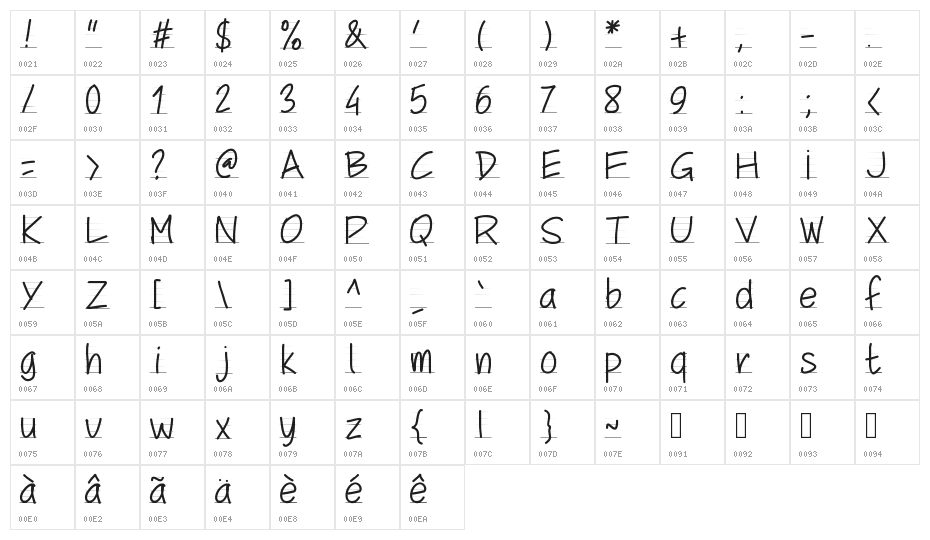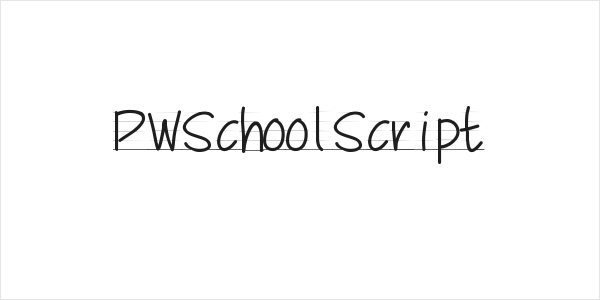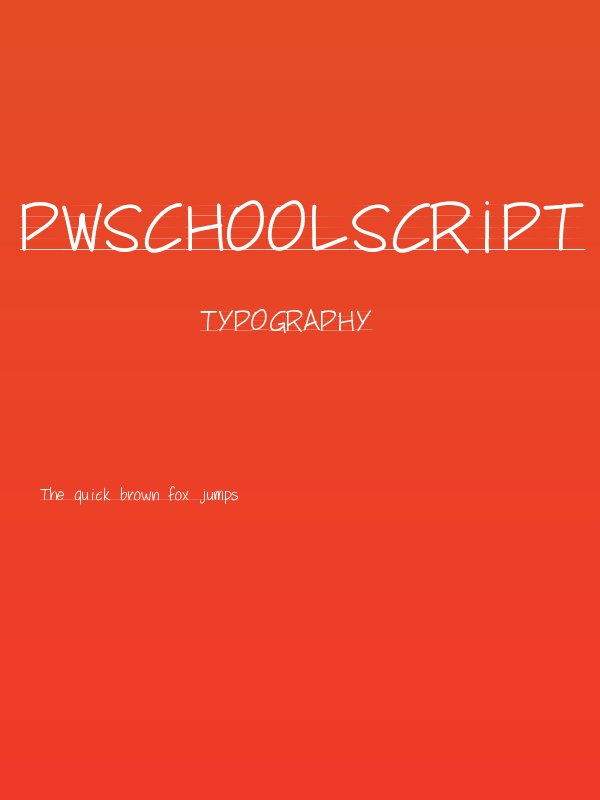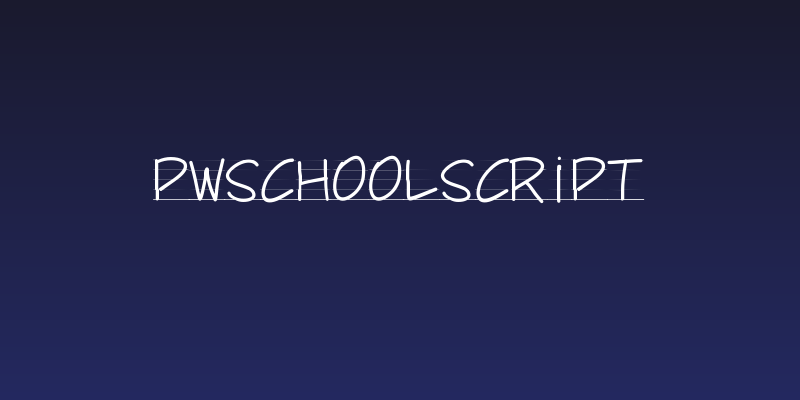
PWSchoolScript Font
PWSchoolScript Description
This playful and casual font mimics the style of handwriting on lined paper, reminiscent of school notes. The characters are slightly irregular, adding a personal touch and charm. The uppercase and lowercase letters are well-proportioned, with a consistent stroke width that gives a clean and approachable appearance. Numbers and special characters maintain the same playful style, making the font versatile for various informal uses. The font's design is straightforward yet engaging, making it suitable for projects that require a friendly and informal tone.
| Overall Style | Casual |
| Use Case | Headlines, Informal text, Educational materials |
| Proposed Projects | Ideal for educational materials, children's books, informal invitations, and personal notes. |